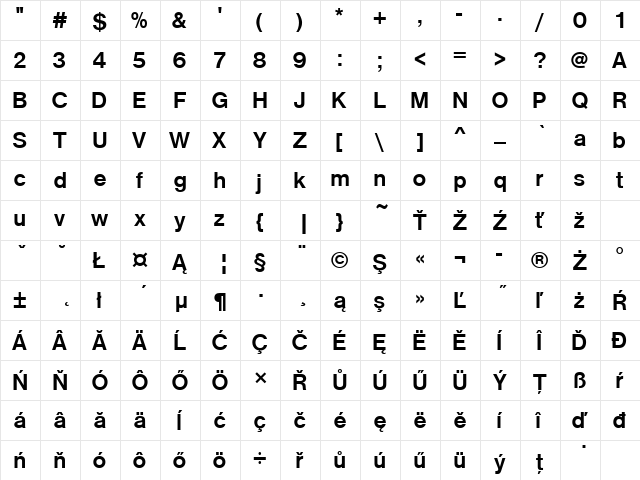
NimbusSanPEE Bold Font Preview
NimbusSanPEE Bold
Design Context for NimbusSanPEE Typeface
NimbusSanPEE takes a measured approach to typography — its balanced proportions and neutral character make it a reliable workhorse for both digital and print work. The heavy weight commands attention and anchors typographic hierarchies.